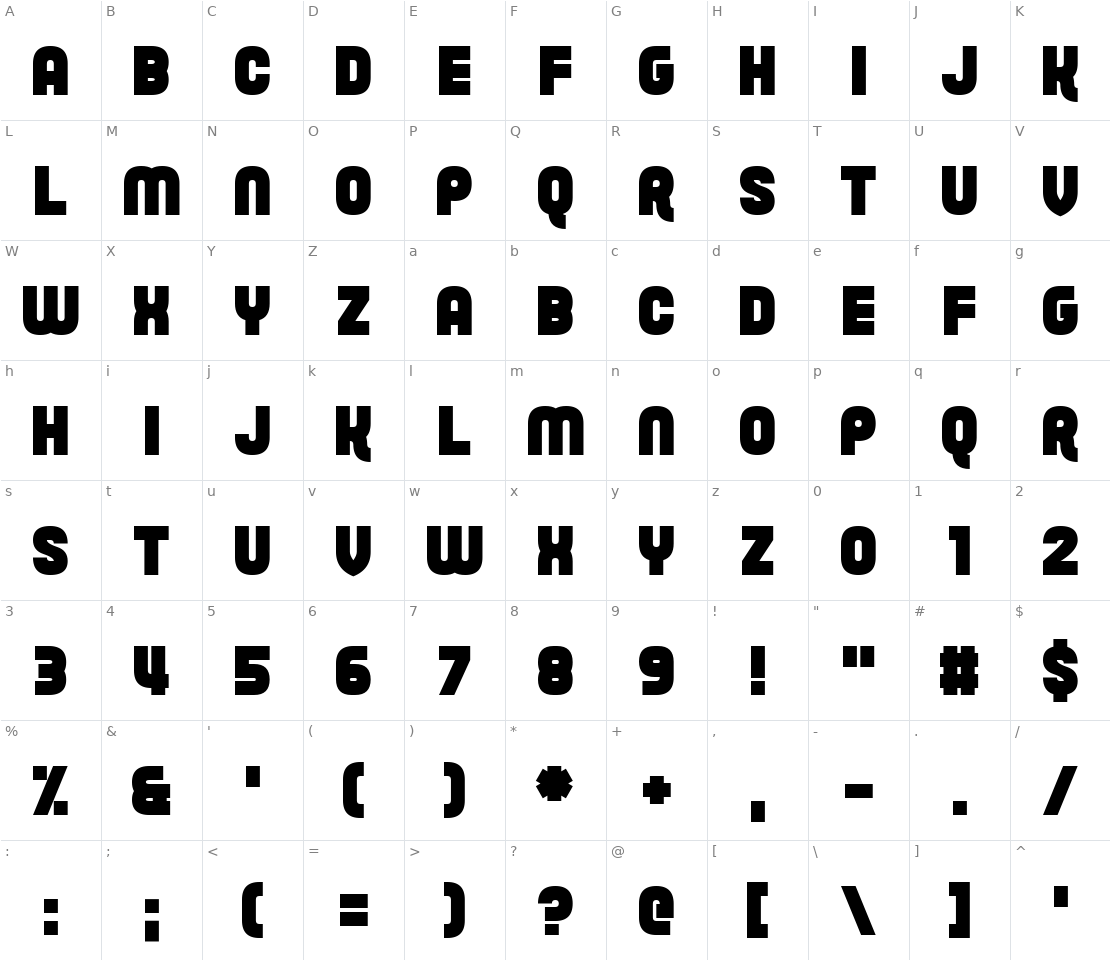
Yumi
Yumi is a bold, rounded display face from Chequered Ink with thick, heavy strokes and soft corners that give it a dense but friendly presence. The letterforms sit wide and condensed at the same time, packing a lot of visual mass into a compact frame. It works naturally for headlines, logos, and display settings where you need something that reads as modern and approachable but still hits with real weight.